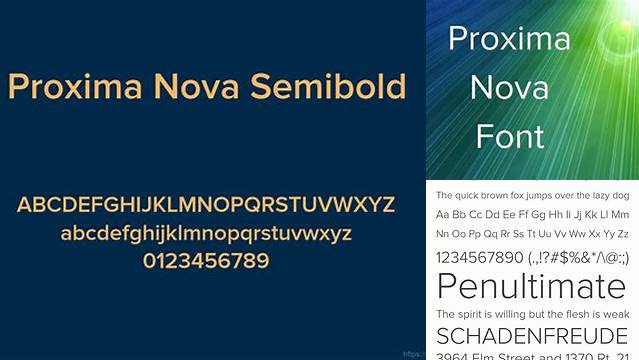
Hey guys! Ever stumbled upon a font that just screams modern, clean, and versatile? Chances are, you were looking at something like Proxima Nova. And today, we're diving deep into the Proxima Nova SemiBold font, specifically focusing on how you can get your hands on it for free and how to make the most out of this incredible typeface. Seriously, this font is a workhorse, guys, and understanding its nuances can seriously elevate your design game. Whether you're a seasoned pro or just starting out, this guide is for you. We'll cover everything from where to find free downloads (legally, of course!) to how this specific weight can transform your projects. So, grab your coffee, get comfy, and let's explore the world of Proxima Nova SemiBold!
Understanding the Proxima Nova SemiBold Font Family
Alright, let's kick things off by understanding what Proxima Nova is all about, especially the SemiBold weight. Proxima Nova isn't just a font; it's a superfamily designed by Mark Simonson. It's a geometric sans-serif typeface that masterfully blends classic proportions with a modern sensibility. Think of it as the perfect marriage between Futura and Akzidenz Grotesk. This blend gives it a unique character – it’s both friendly and formal, approachable yet authoritative. The SemiBold weight, specifically, sits in a sweet spot. It's not too light that it disappears, nor is it too heavy that it shouts over everything else. It offers excellent readability while still packing enough punch to stand out. This balanced nature makes Proxima Nova SemiBold incredibly versatile. You'll find it used everywhere, from brand identities and web design to editorial layouts and app interfaces. Its clean lines and balanced strokes ensure legibility across various sizes and mediums, which is a huge plus for designers working on diverse projects. The SemiBold weight, in particular, is often the go-to for headings, subheadings, and call-to-action buttons because it provides that desired emphasis without being overly aggressive. It maintains a good visual hierarchy, guiding the reader's eye effectively through the content. The geometric construction means that characters like 'o', 'a', and 'e' are nearly perfect circles, contributing to its clean and modern aesthetic. Yet, there are subtle humanist touches that prevent it from feeling sterile or robotic. This thoughtful design is why Proxima Nova has become such a staple in the design community. Its SemiBold iteration truly embodies this balance, making it a font you'll want to have in your arsenal.
The Appeal of SemiBold Weights in Typography
So, why are we so hyped about the SemiBold weight, you might ask? Well, guys, SemiBold is like the reliable friend of the font world. It’s got presence without being overwhelming. In typography, font weights (like Light, Regular, Medium, SemiBold, Bold, Black) are crucial for creating visual hierarchy and guiding the reader's eye. The SemiBold weight typically sits between the Regular and Bold weights. This positioning gives it a unique advantage: it's substantial enough to grab attention for headlines, subheadings, or key phrases, but it doesn't have the visual weight that might make longer blocks of text feel too heavy or dense. Imagine trying to read a paragraph set in Bold – it can be exhausting! But SemiBold? It's just right. It provides that extra oomph needed for emphasis, making important information pop without sacrificing readability. For web designers and app developers, this is gold. Think about call-to-action buttons – they need to be noticeable but not jarring. Or section titles on a webpage – they need to clearly demarcate content without dominating the page. Proxima Nova SemiBold excels in these scenarios. Its clean, geometric structure means that even at this bolder weight, the letterforms remain crisp and clear. This clarity is paramount for user experience, ensuring that users can quickly scan and understand content. Furthermore, the SemiBold weight often strikes a perfect balance between character and clarity. It allows the unique personality of the font to shine through without compromising its function as a carrier of information. It’s the weight that says, “Hey, pay attention to this!” without yelling. So, when you’re choosing fonts for your next project, don’t just default to Regular or Bold. Consider the power of SemiBold. It's a subtle but effective way to add polish and professionalism to your designs, and Proxima Nova SemiBold is a prime example of this typographic excellence. It's the unsung hero that makes your designs both beautiful and functional, guys!